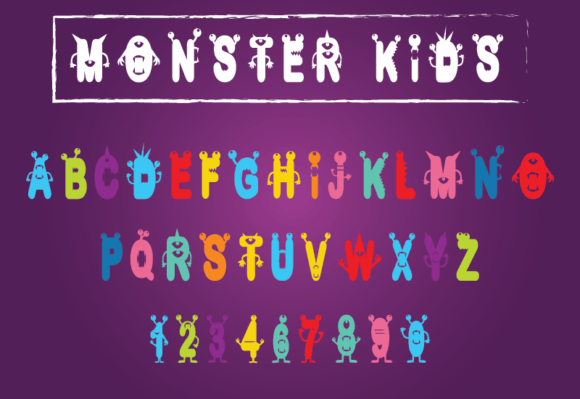
Introducing Monster Kids Font, the ultimate font for children's writing! Created by the talented GraphicsNinja, this decorative font is a must-have for anyone looking to add a touch of whimsy and playful charm to their designs.
With each letter creatively crafted, Monster Kids Font is bursting with fun shapes and quirky details that will instantly captivate both children and adults alike. Whether you're working on children's books, invitations, or any design that needs a dash of playful personality, this font is the perfect choice.
Imagine the joy and wonder that will fill the hearts of young readers as they dive into a story written in Monster Kids Font. The letters dance across the page, bringing the words to life and sparking their imagination. It's like a magical journey through a world of creativity and adventure.
Not only does Monster Kids Font capture the essence of childhood, but it also offers versatility and ease of use. Its keyword, "Font For Children's Writing," perfectly captures its purpose and ensures that your target audience will find exactly what they're looking for. Say goodbye to generic fonts that fail to capture the attention of your young audience.
But Monster Kids Font isn't just for children's projects. It can also be used to add a playful touch to party invitations, greeting cards, and even social media graphics. Stand out from the crowd and let your designs shine with this font that oozes creativity and charm.
GraphicsNinja has truly outdone themselves with this font. They've managed to infuse each letter with a sense of childlike wonder and whimsy that will make your designs come alive. The attention to detail is remarkable, and you can trust that every character has been carefully designed to ensure a seamless and visually appealing result.